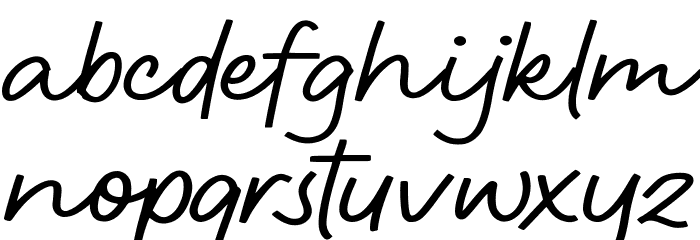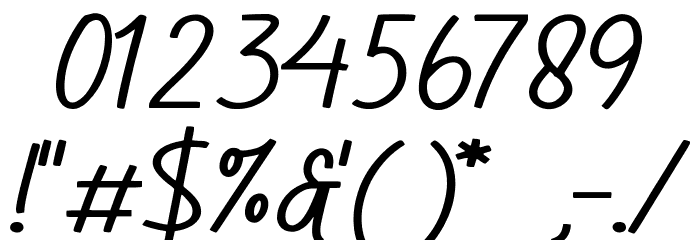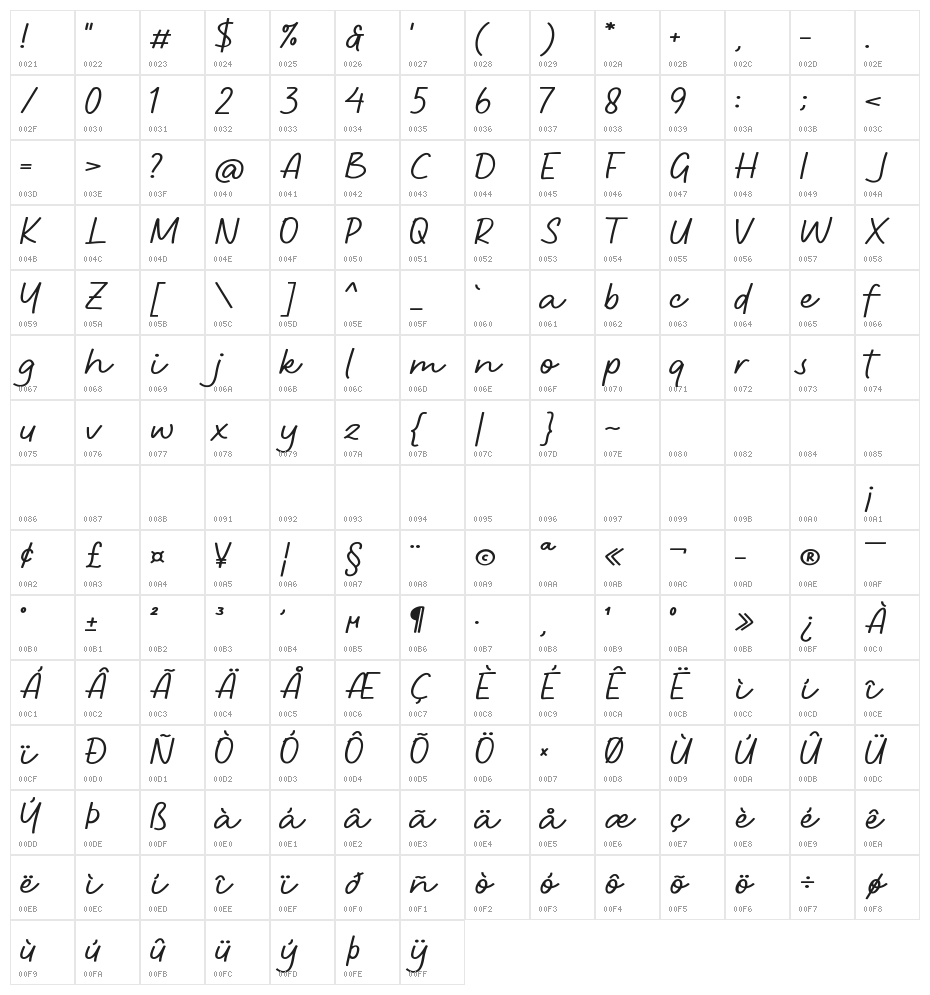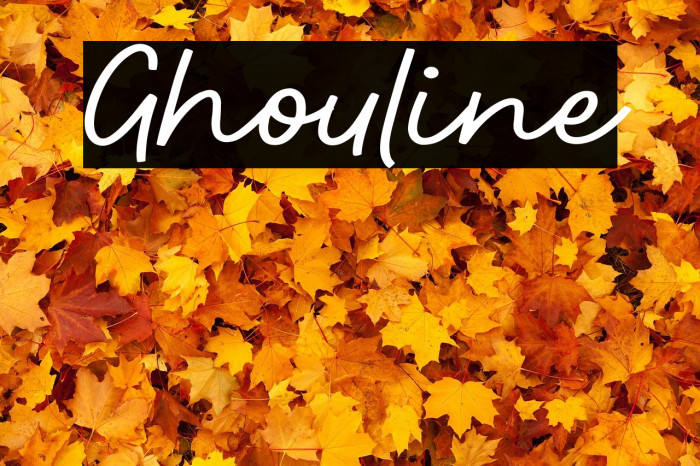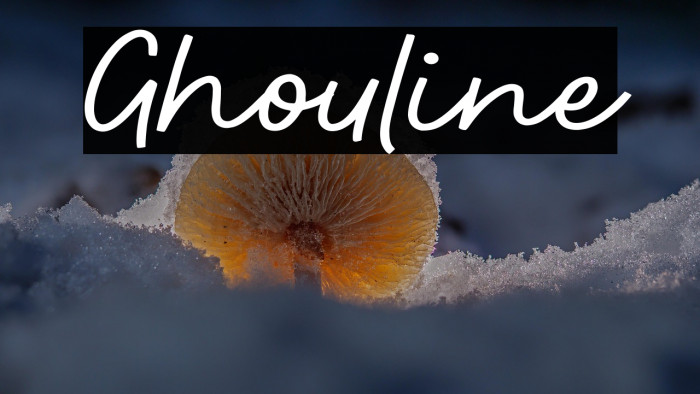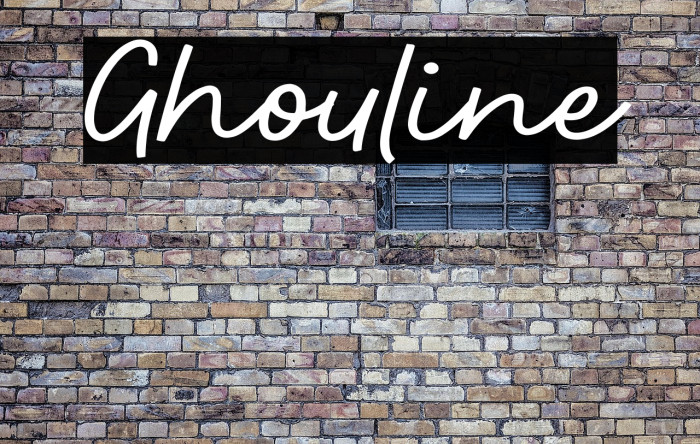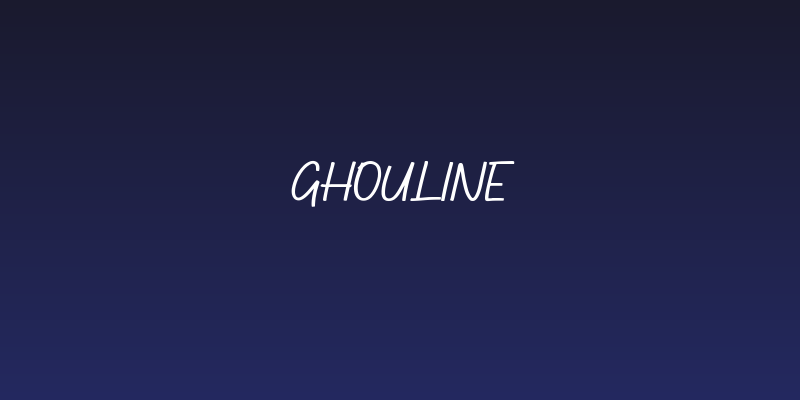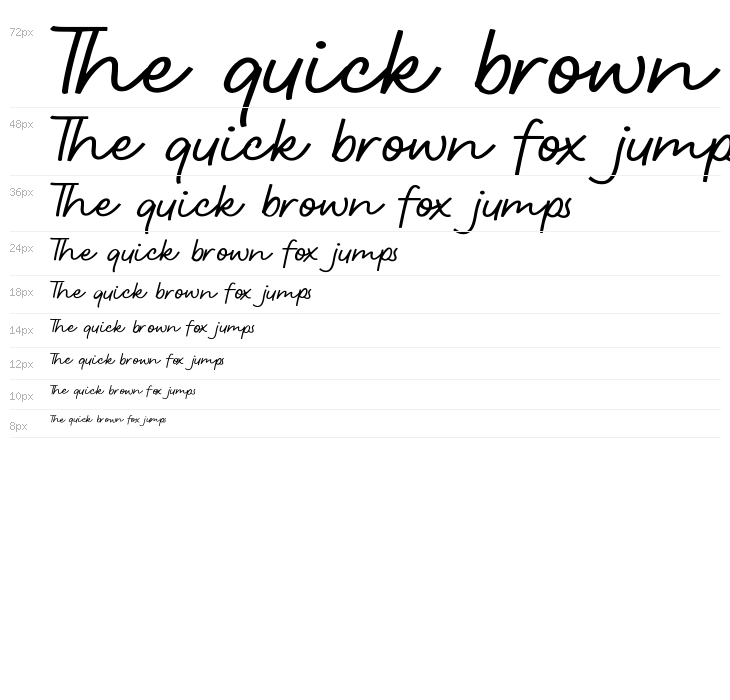
Ghouline Font
This font exhibits a lively and dynamic handwritten style, characterized by its fluid and continuous strokes. The uppercase letters are bold and slightly slanted, giving a sense of motion and energy. The lowercase letters maintain a consistent flow, enhancing the handwritten feel. The numerals are clear and legible, matching the overall style of the alphabet. Special characters are well-integrated, maintaining the cohesive look of the font. The design is modern and playful, suitable for projects that require a personal touch.
A dynamic handwritten font with fluid strokes and a modern feel.
- Proposed Projects: Ideal for greeting cards, invitations, personal branding, and creative projects that require a personal and lively touch.
- Use Case: Logos, Headlines, Creative projects